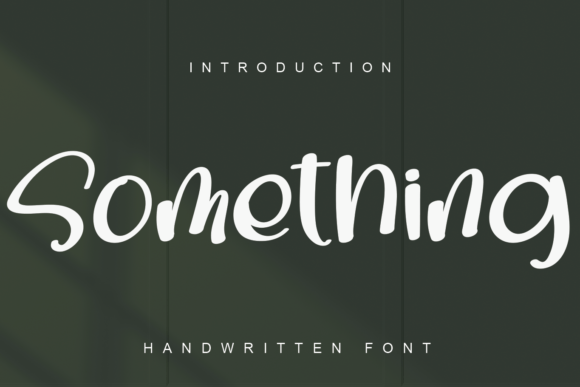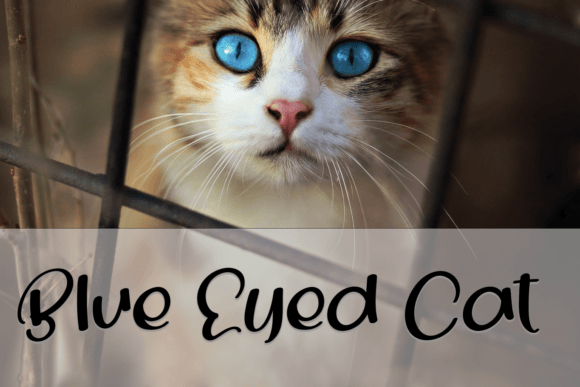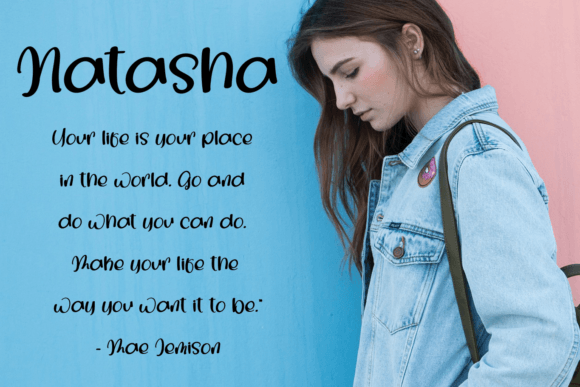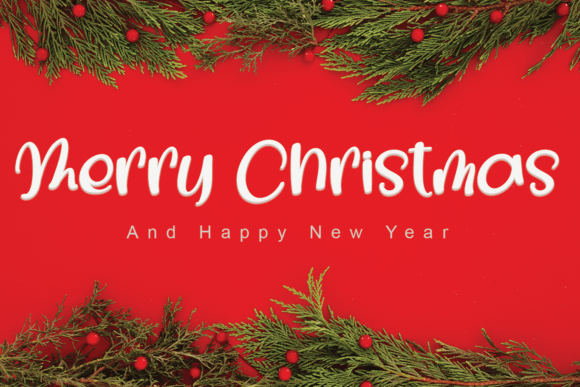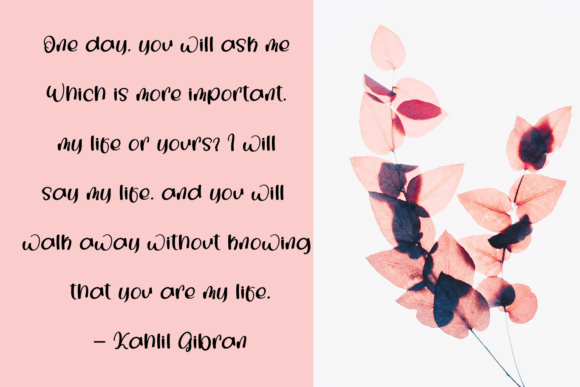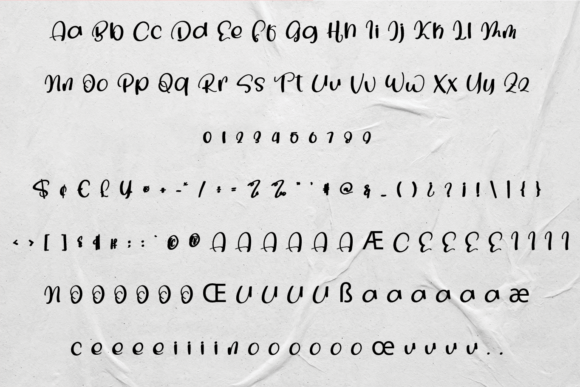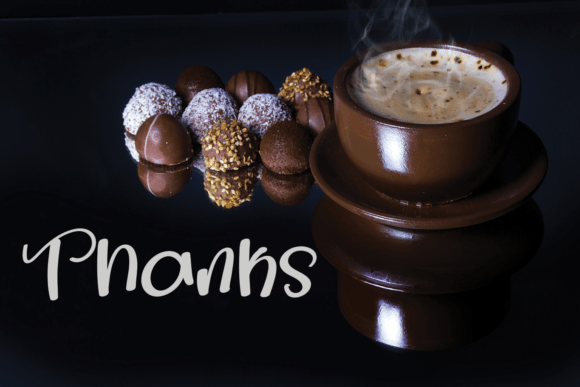
Something Font
Make Every Design Special with Something Handwritten Font
The Something Handwritten Font is a beautifully crafted script designed to add a magical and elegant touch to your creative work. With graceful curves and a flowing structure, this handwritten font brings personality and sophistication to every design it touches.
Whether you’re working on a stylish social media post, a DIY craft project, or a special event invitation, Something helps your work stand out in the most artistic way possible.
Perfect for Instagram, Crafts, and Special Projects
This font was created with creative versatility in mind. It’s ideal for a wide range of projects, including Instagram posts, Pinterest graphics, digital invitations, branding kits, and calligraphy quotes. Crafters can use Something for vinyl projects, printables, greeting cards, and even custom planner pages.
Its handwritten charm makes it especially suitable for designs that need a touch of individuality and warmth.
A Magical Script with Elegant Flow
The Something Handwritten Font features a smooth and refined letter structure, capturing the feel of natural handwriting while maintaining consistency and balance. Each stroke feels intentional and artistic, yet casual enough to keep the design approachable.
Thanks to its excellent legibility, Something works well at both small and large sizes. It’s perfect for headlines, short phrases, or even extended text in a minimalist layout.
Versatile for Print and Digital Design
Whether you’re designing for screen or print, Something delivers stunning results across the board. From high-resolution prints like T-shirts, mugs, and greeting cards to digital uses like blog banners and YouTube thumbnails, this font remains sharp and expressive.
For added visual interest, pair it with a clean, sans-serif font. This contrast will help the handwritten script pop while keeping your overall design clean and professional.
Why Designers Love Something Handwritten Font
Here’s why this font stands out in the creative world:
• Magical and elegant handwritten style
• Great for Instagram, DIY crafts, and elegant branding
• Highly readable and polished letterforms
• Perfect for both print and digital designs
Add a Personal and Stylish Touch to Your Designs
In summary, the Something Handwritten Font is a graceful, eye-catching typeface that transforms ordinary designs into meaningful works of art. Whether you’re crafting a message for a loved one or creating branded content for a modern business, this font delivers emotion, style, and versatility.
If you’re looking for a handwritten font that blends elegance with creativity, Something is the perfect choice to elevate your next design project.